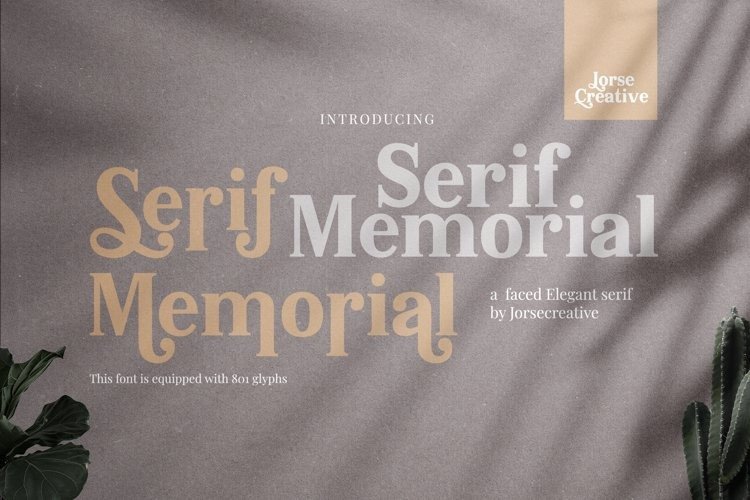
Serif Memorial Font
Serif Memorial is a Serif Font that was designed with 801 Glyph including alternative Uppercase and lowercase letters. It is suitable for media promotion, especially on social media, and is no less beautiful when used for magazines, brochures, trademarks, etc.
Serif Memorial is very versatile fonts. Perfect for branding projects, logos, magazine imagery, wedding invitations, posters, clothing, packaging, website headers, or simply as a stylish text overlays to any background image.